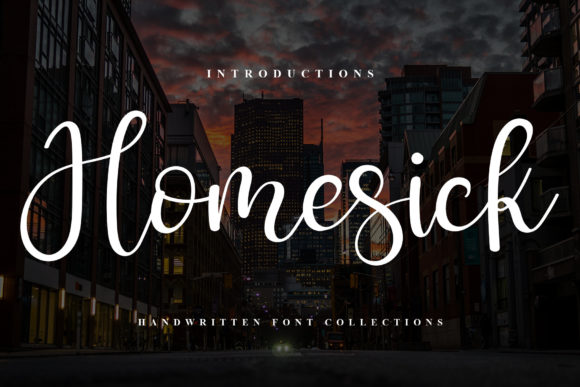
Prepare yourself to introduce a font that embodies a profound emotional journey, a font capable of capturing the essence of heartfelt nostalgia and transforming your designs into stirring expressions. Homesick is not merely a font; it is an artistic conduit that channels the power of memories, transforming words into visual echoes of past experiences.
Homesick, a script font of intricate beauty, beckons you to embark on a voyage of self-expression. Its flowing lines, reminiscent of a quill's tender strokes upon parchment, evoke a sense of timeless elegance, reminiscent of bygone eras. Homesick is not just a font; it is a storyteller, a font that weaves tales of love, longing, and life, encapsulating the beauty and the bittersweet ache of remembrance.
Picture yourself crafting a heartfelt letter, a message imbued with profound emotions, penned with the grace and charm of Homesick's characters. Each letter, meticulously designed to mirror the fluidity of penmanship, carries the weight of unspoken feelings, making your words resonate with an authenticity that touches the soul.
Homesick's versatility extends beyond heartfelt sentiments. Its graceful curves and elegant flourishes lend themselves effortlessly to a myriad of design projects, from captivating logos that exude sophistication to alluring branding that speaks volumes about your brand's story.
Whether you're a seasoned designer or a creative soul seeking a font that speaks to your heart, Homesick awaits you. Embrace the allure of nostalgia, the beauty of remembrance, and see your designs transformed into poignant expressions of art. Homesick is not just a font; it is an invitation to explore the depths of your emotions and translate them into visual masterpieces.